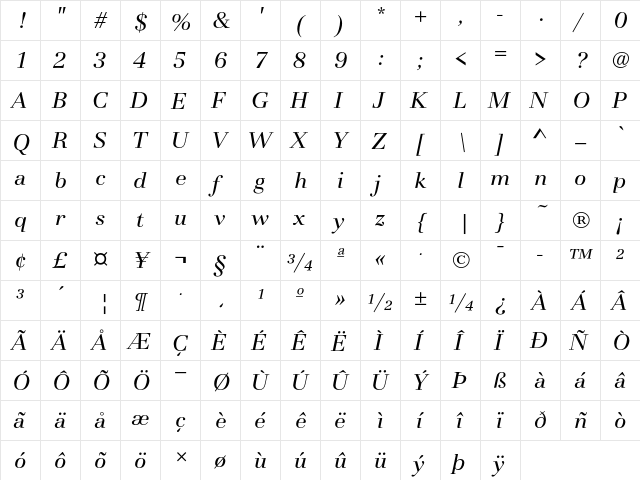
Basilia T Regular Italic
Design Context for Basilia T Typeface
Basilia T is a composed and adaptable typeface that performs quietly and consistently across a wide range of design contexts. The slanted form adds forward momentum and visual energy.
Pro Tip: Try Basilia T for annotation and caption copy alongside an upright companion — the contrast in angle creates a dynamic but ordered typographic system.